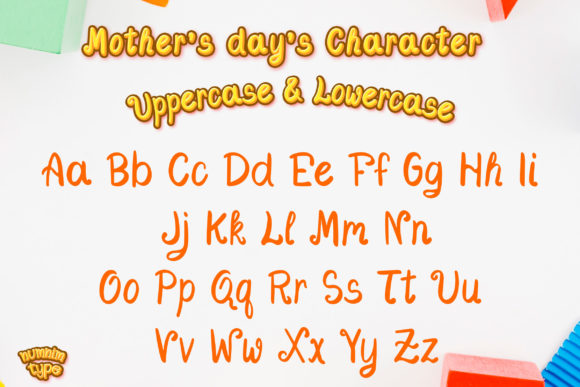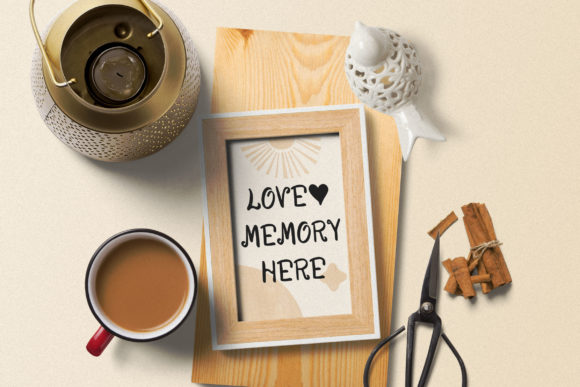
Mother's Day Font
db-ku.com - Script & Handwritten -- Mother’s Day is a joyful and friendly handwritten font, featuring cute doodle elements. Fall in love with its sweet, flexible style and use it to create lovely designs for school or children related.